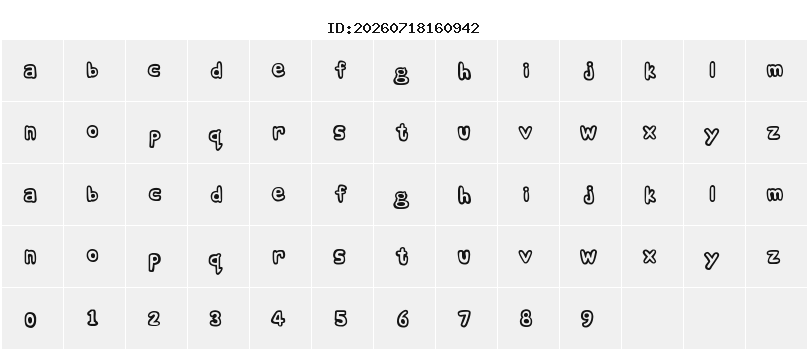
About comic andy.ttf
comic andy.ttf is a modern, elegant sans-serif font designed for ultimate readability and visual harmony. Perfect for branding, headlines, web design, and print materials.